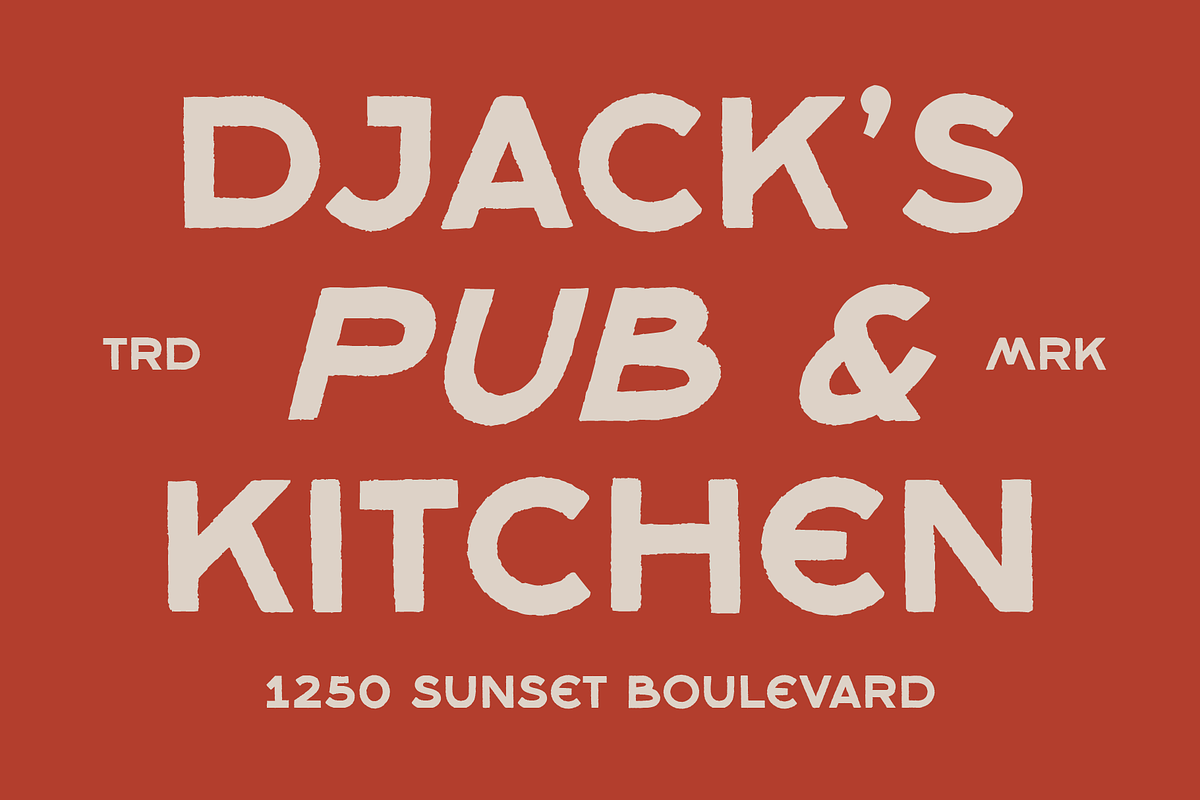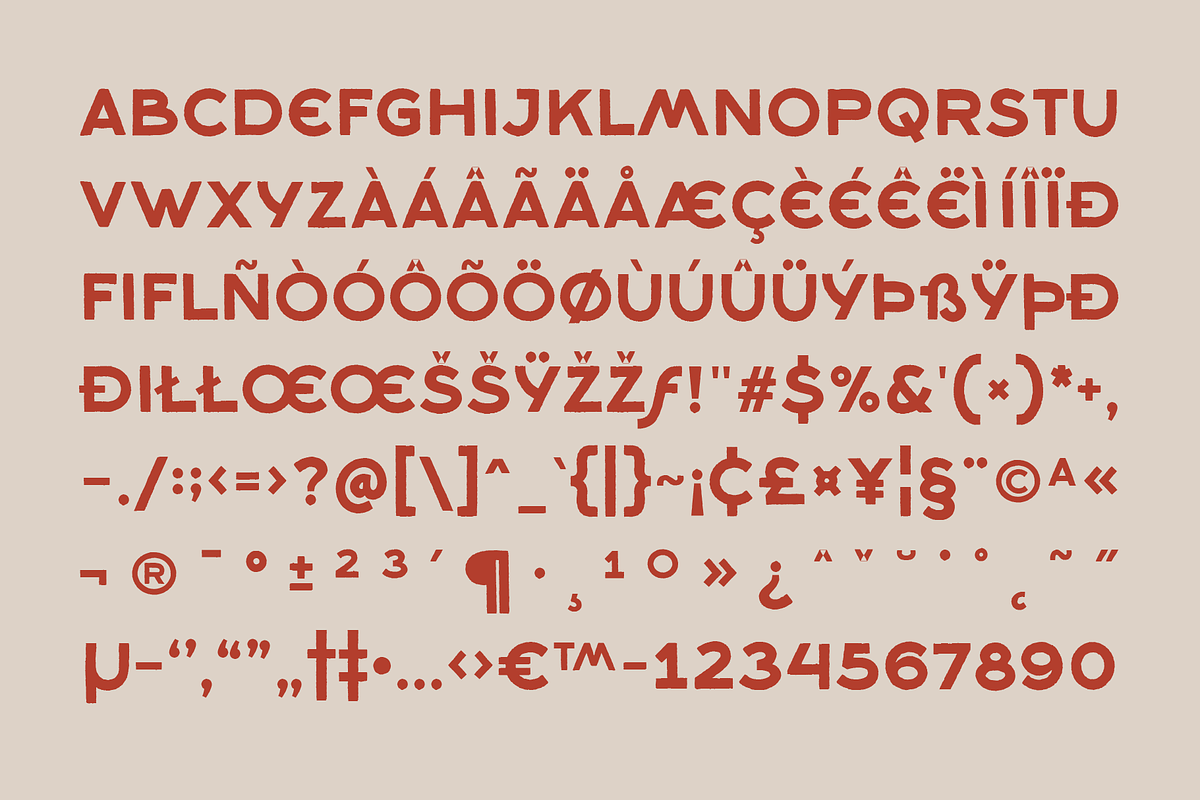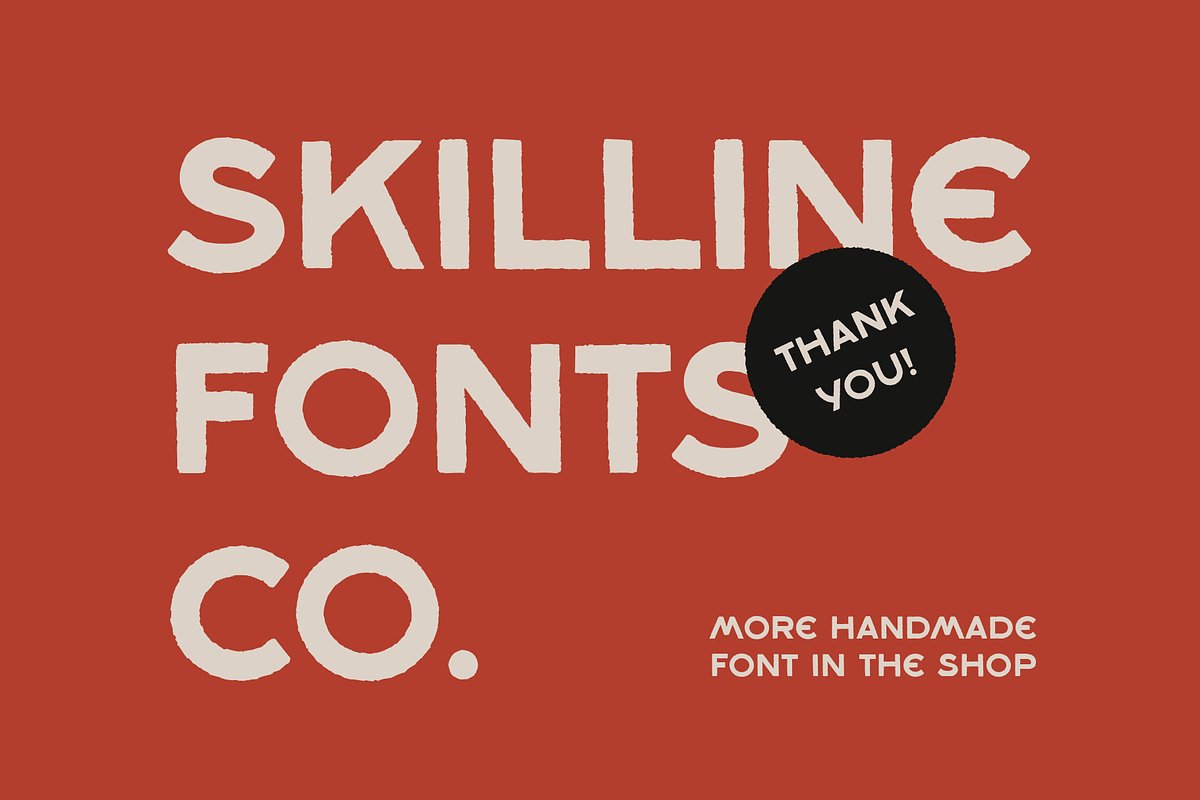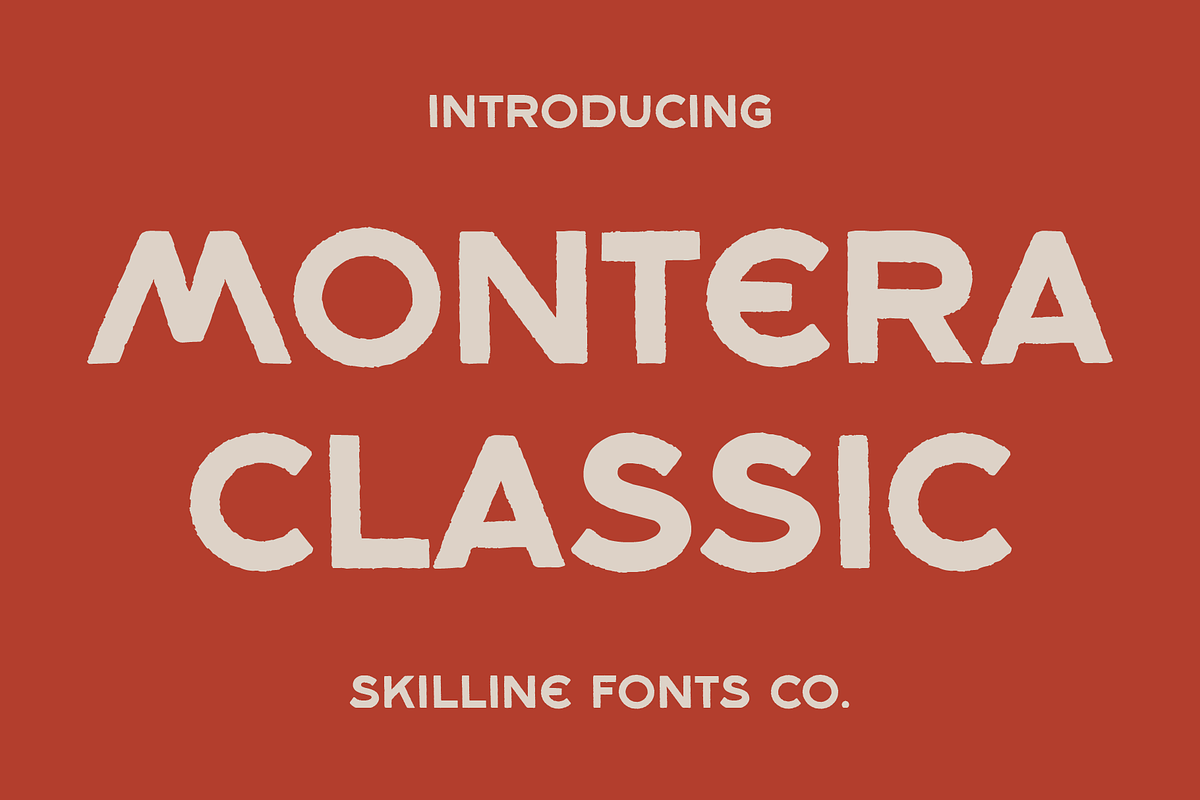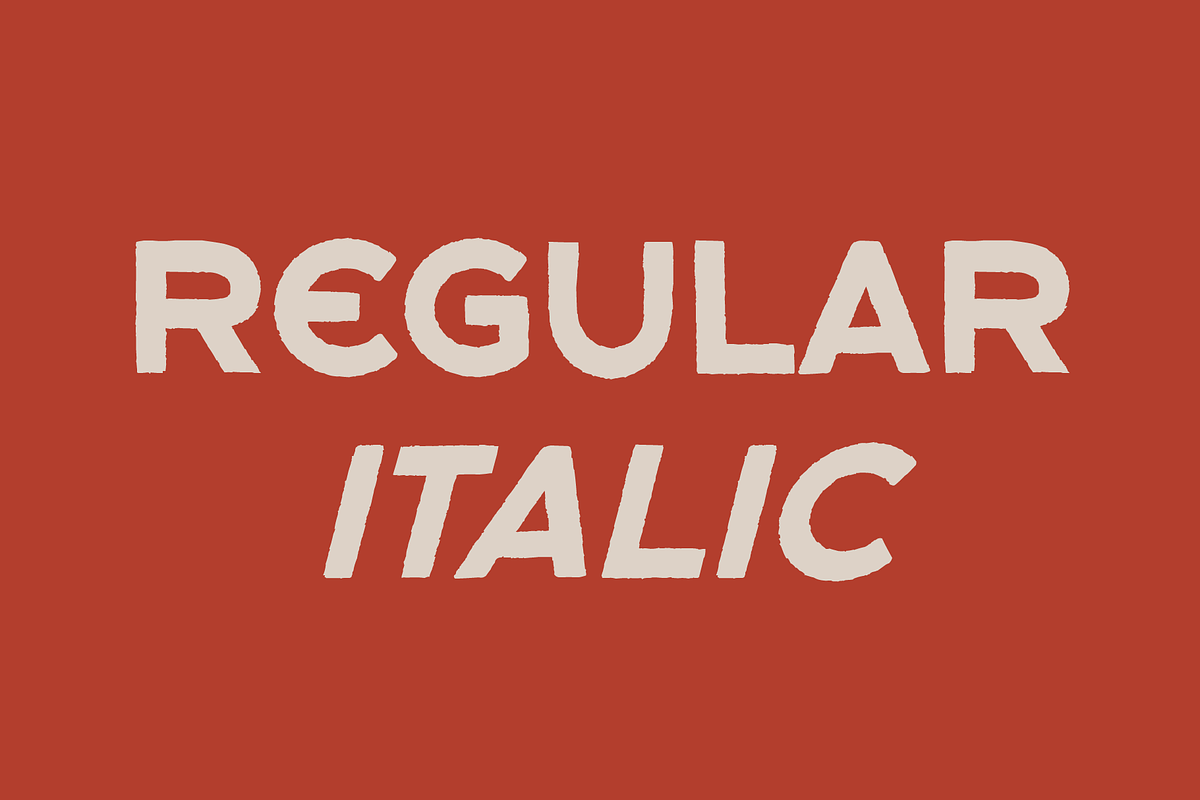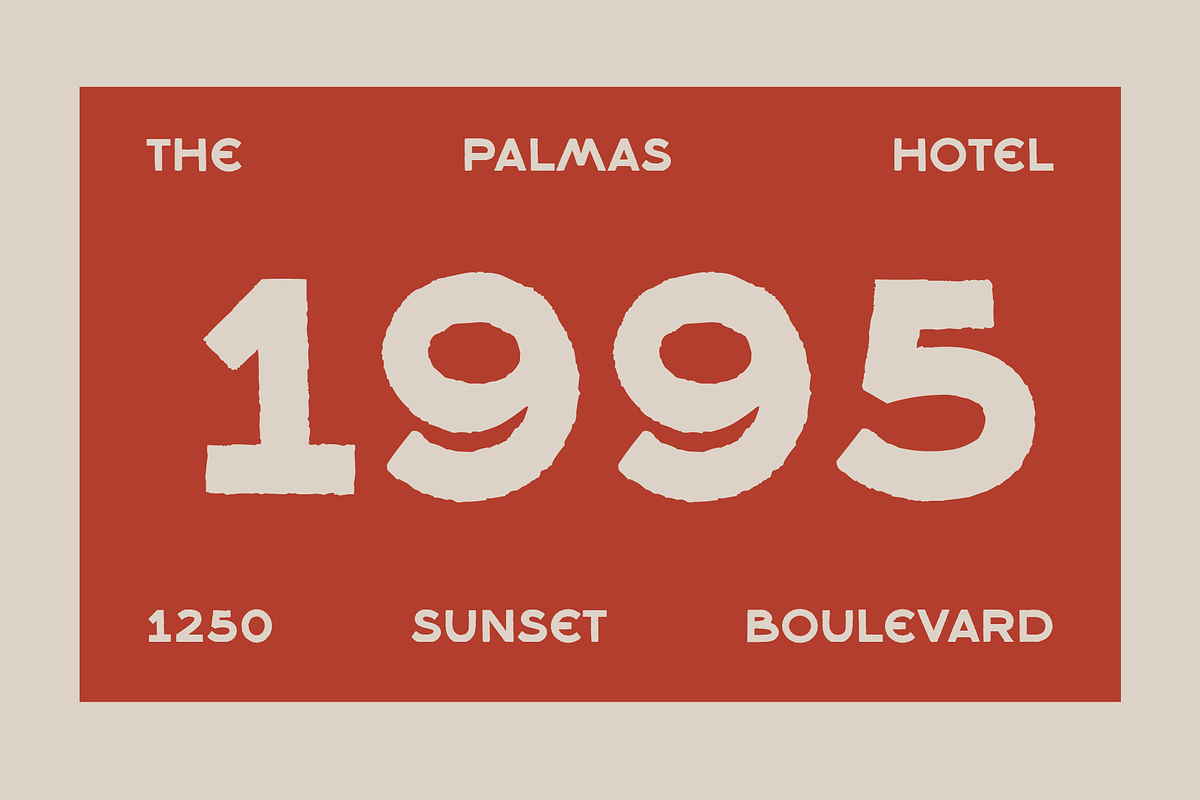
SFC Montera Classic
Montera Classic is a handcrafted display sans serif inspired by vintage signage, classic storefront lettering, and traditional painted typography. Softly irregular contours, rounded geometry, and intentionally textured edges create an authentic handcrafted appearance while preserving balanced proportions and clear readability.
Designed with a warm retro spirit, this typeface combines bold forms with subtle imperfections for a distinctive visual rhythm and natural character. It includes multilingual support, complete punctuation, and extended Latin characters, making it a refined display typeface with timeless personality.
* Handcrafted Display Sans Serif
* Textured Rough Edges
* Vintage Retro
* Numerals & Punctuation
* Multi Language